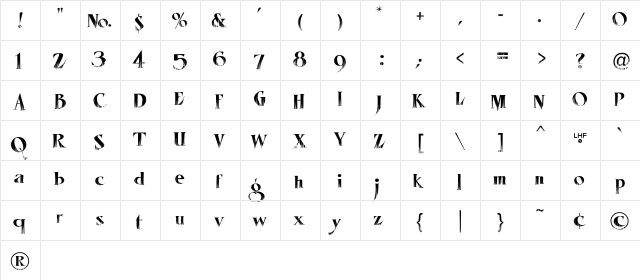
LHFMisterSpookyREG Regular
Design Context for LHFMisterSpookyREG Typeface
LHFMisterSpookyREG is a composed and adaptable typeface that performs quietly and consistently across a wide range of design contexts.